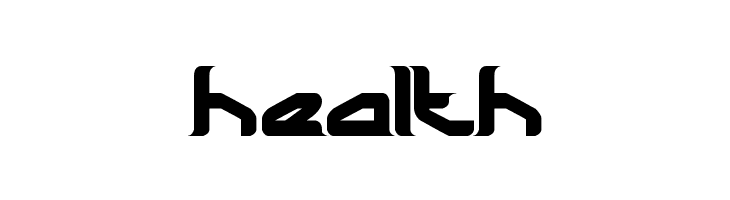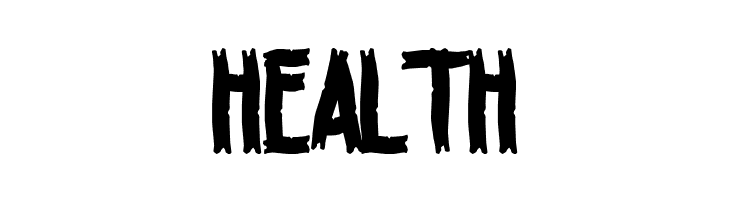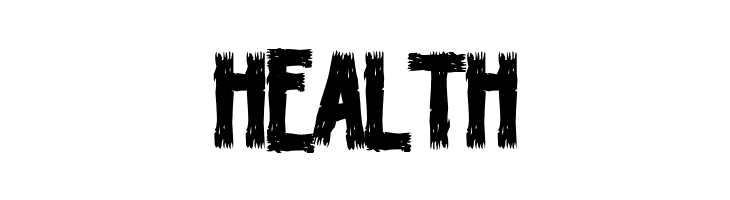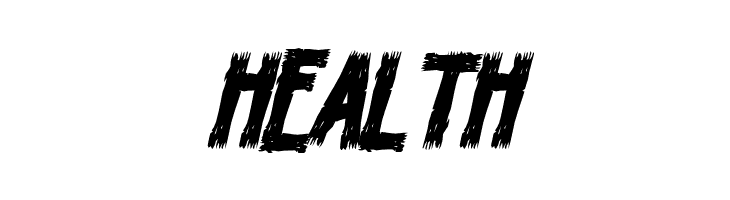
A bold, impactful typeface with strong, thick strokes.
A bold, hollow font with a modern geometric style.
A bold, italic, and condensed font with a modern and dynamic style.
A bold, italicized font with a dynamic and modern style.
Bold, hollow, italic font with a modern and dynamic style.
A bold, tall, and condensed font with high contrast and sharp edges.
A whimsical, hand-drawn font with tall, narrow characters.
Expressive handwritten style with fluid, cursive letterforms.
A bold, distressed font with a grunge texture and rugged appearance.
A playful, hand-drawn font with a sketch-like texture and bold outlines.
A bold, expressive handwritten font with thick strokes and dynamic shapes.
A bold, italicized handwritten font with a dynamic and modern style.
A bold, expressive script font with flowing, cursive letterforms.
A bold, rounded font with smooth curves and uniform strokes.
A modern, rounded font with uniform stroke width and excellent readability.
A modern, rounded font with a minimalist and clean design.
A bold, italic font with smooth, rounded characters and a dynamic slant.
A modern, rounded sans-serif font with smooth curves and balanced spacing.
A sleek, modern, and italicized font with a light and airy feel.
A modern, italic font with rounded edges and consistent stroke thickness.
A modern, italicized font with smooth curves and a sleek appearance.
A bold, expressive brush-style font with dynamic strokes and a hand-painted look.
A sophisticated cursive script with decorative swirls and elegant curves.
A modern, bold italic font with rounded edges and a dynamic style.
A bold, geometric font ideal for impactful headlines and logos.
A bold, italic font with a dynamic and modern style.
An elegant script font with flowing, cursive letters and intricate swashes.
An elegant, cursive font with flowing, ornate characters.
A modern, sleek italic font with clean lines and dynamic slant.
A bold, modern sans-serif font with clean lines and strong visual impact.
A sleek, thin, italicized font with a modern and elegant design.